Canva Fonts That Look Like a Real Logo
Have you ever looked at a brand’s logo and thought, “How do they make it look that good?” Spoiler alert: it’s usually the font. The right font can take your business name from “I typed this in Word” to “I hired a design agency”… and the best part? You do not need to spend a single dollar to get that look.
We spend a lot of time obsessing over fonts around here (it’s basically our love language), and today we are rounding up seven free Canva fonts that genuinely look like they belong on a logo. Think clean lines, editorial energy, and that something that makes people stop scrolling. Whether you are building a brand from scratch, refreshing your Canva graphics, or just looking for free logo fonts that feel polished and intentional – this list is for you.
Grab your iced coffee, because we are about to make your brand look really good. ✨
What Makes a Font Look Like a Logo?
Not every pretty font is a logo font — and that is an important distinction! The best fonts for logos tend to have a few things in common: they are distinctive enough to be memorable, clean enough to be readable at any size, and they carry a mood or personality that feels intentional. They are not trying too hard, but they are definitely trying something. The fonts below all have that quality. They feel considered, elevated, and ready to be the face of a brand.
And the fact that they are free on Canva? Honestly iconic. Let’s get into it.
7 Free Canva Fonts That Look Like a Logo
1. Reborn
If fonts could have a “main character energy” moment, Reborn would be it. This one has a bold, editorial presence that feels like it belongs on a luxury product, a creative studio’s website, or a fashion brand’s hang tag. It reads confident without being loud, which is the sweet spot for logo typography. Great for brands that want to feel modern, edgy, and unforgettable.
Best for: Creative studios, fashion brands, bold personal brands
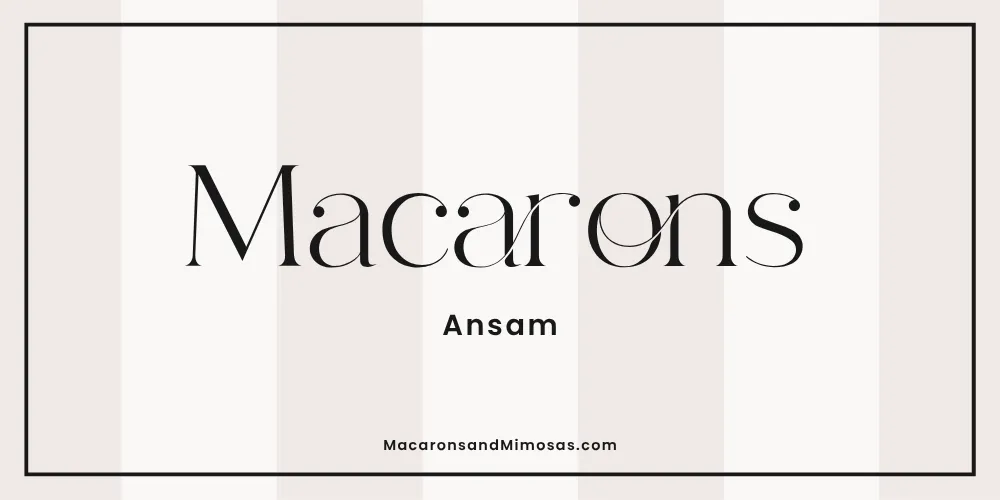
2. Ansam
Ansam brings this beautiful sense of refinement that just feels expensive. There is an elegance to it that makes your brand name feel like it was meant to be seen in big, beautiful type. If your aesthetic is soft luxury, elevated minimalism, or anything that belongs in a clean, white-walled boutique, Ansam is going to be your new best friend. Seriously, type your business name in this font and just try not to love it.
Best for: Boutiques, beauty brands, wellness brands, wedding professionals
3. Ashsing
Ashsing has this wonderfully distinct personality that makes it so easy to build a brand identity around. It is the kind of font that does the heavy lifting for you… the character is already baked in, so your logo has instant personality before you even add a single color. It feels handcrafted in the best possible way, with just enough quirk to keep things interesting without losing its polish.
Best for: Artisan brands, handmade goods, creative entrepreneurs, lifestyle brands
4. TAN Meringue
Okay, the name alone. 🍰 TAN Meringue is soft, dreamy, and utterly delicious-looking in all the best ways. TAN fonts have a reputation for being some of the most editorial, fashion-forward typefaces available, and Meringue is no exception. It has this delicate quality that feels like it belongs on a high-end skincare brand or a bridal boutique – but it is also versatile enough for any brand that wants to feel soft, luxe, and incredibly put-together.
Best for: Beauty, skincare, bridal, lifestyle, any brand with a feminine or dreamy aesthetic
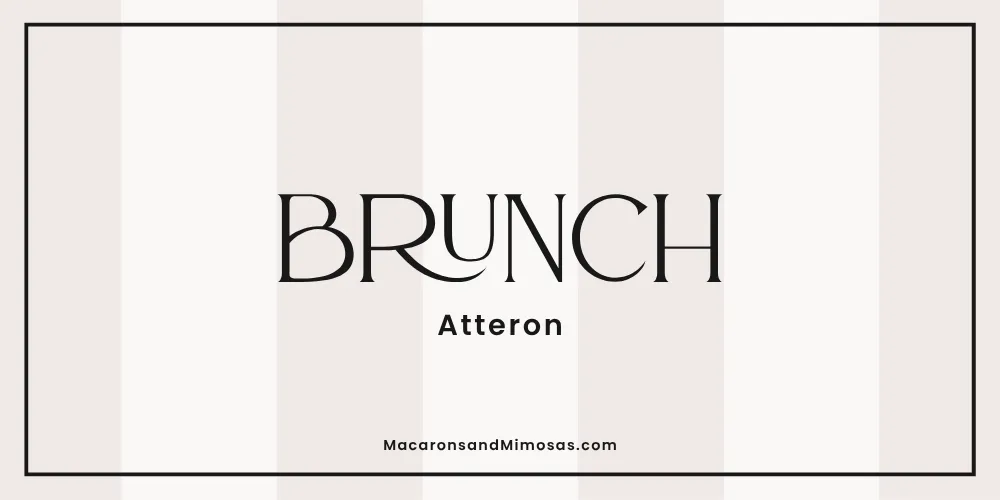
5. Atteron
Atteron is strong, intentional, and clean in all the ways a great logo font should be. There is a geometric quality to it that gives off big agency vibes… like this is a font that means business (literally). If your brand is professional, polished, and wants to command attention without shouting, Atteron is going to do the job beautifully. It scales well, reads clearly, and just looks right as a logo.
Best for: Agencies, consultants, tech-adjacent brands, any business that wants a sleek, professional look
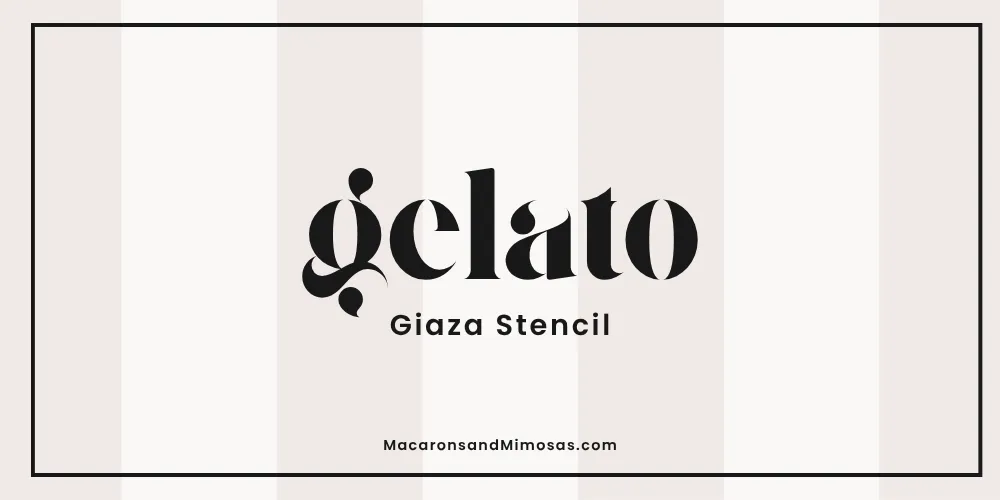
6. Giaza Stencil
Giaza Stencil is for the brand that does not want to blend in. Stencil fonts have had such a major moment in high-fashion branding… think runway programs, editorial magazine spreads, and streetwear drops – and Giaza brings that same energy in a free Canva font. It is bold, structured, and has a cool-girl confidence that makes a brand feel instantly elevated and visually interesting. Not every brand needs a stencil font, but the ones that do? They are unforgettable.
Best for: Fashion, streetwear, beauty brands with an edge, editorial-style brands, any brand going for bold and unexpected
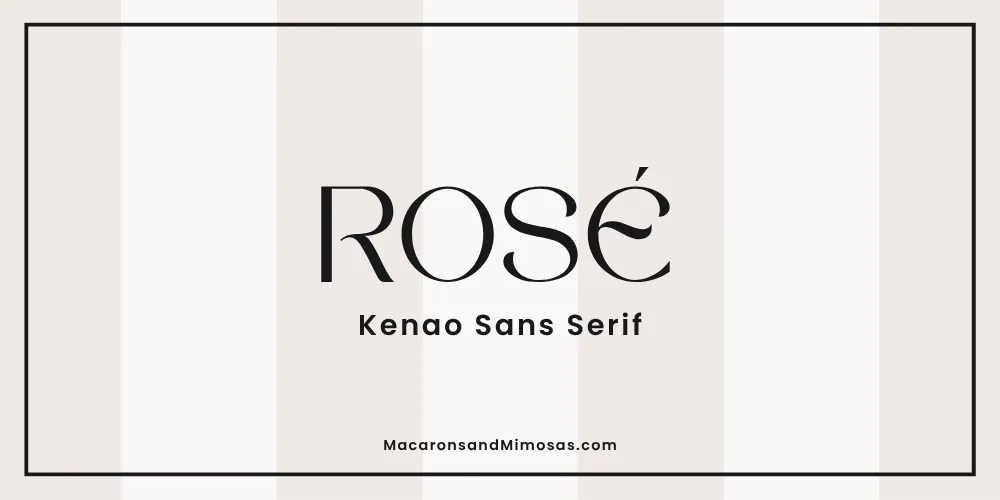
7. Kenao Sans Serif
Ending on a classic because sometimes the cleanest option is the most powerful one. Kenao Sans Serif is the kind of clean, geometric sans that big brands pay a lot of money to have custom-designed for them. It is versatile, timeless, and endlessly professional. Use it as a standalone logo font, pair it with a script for contrast, or build your whole brand system around it. It will not let you down. Ever.